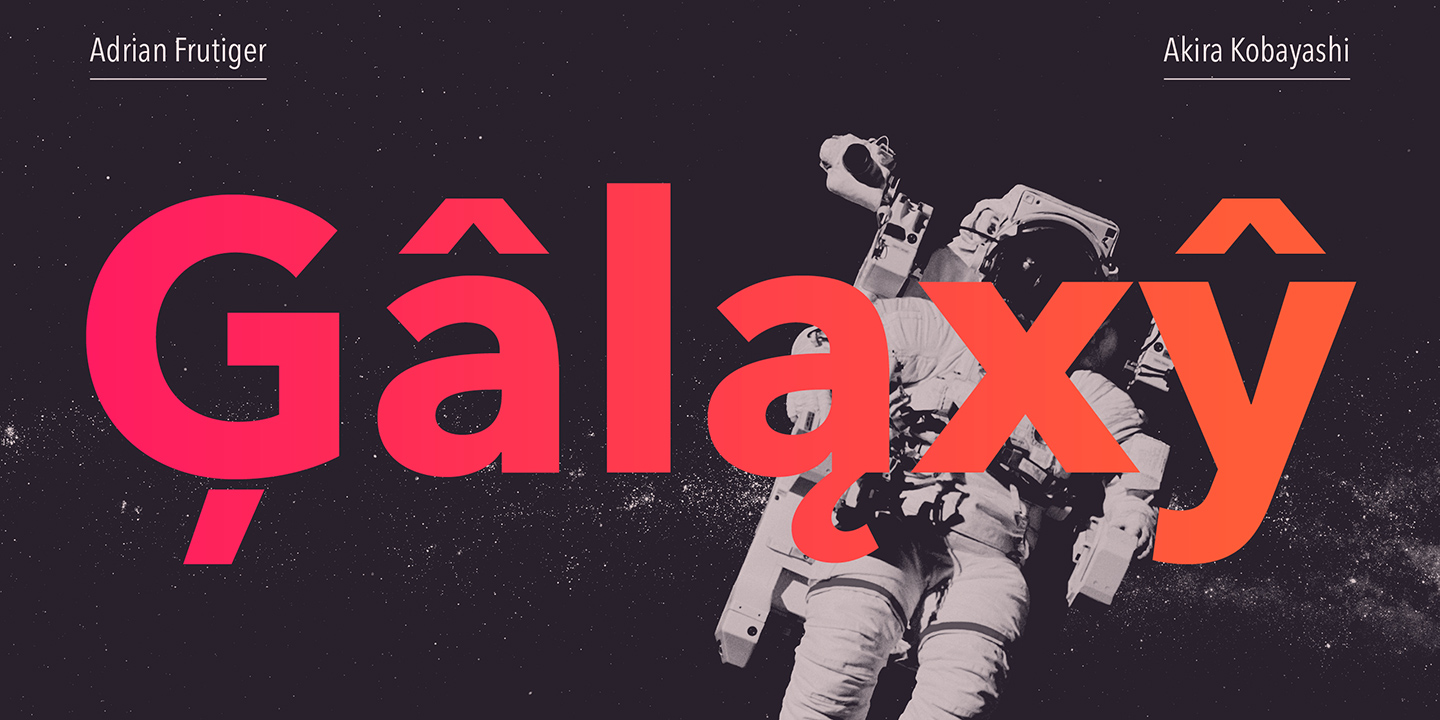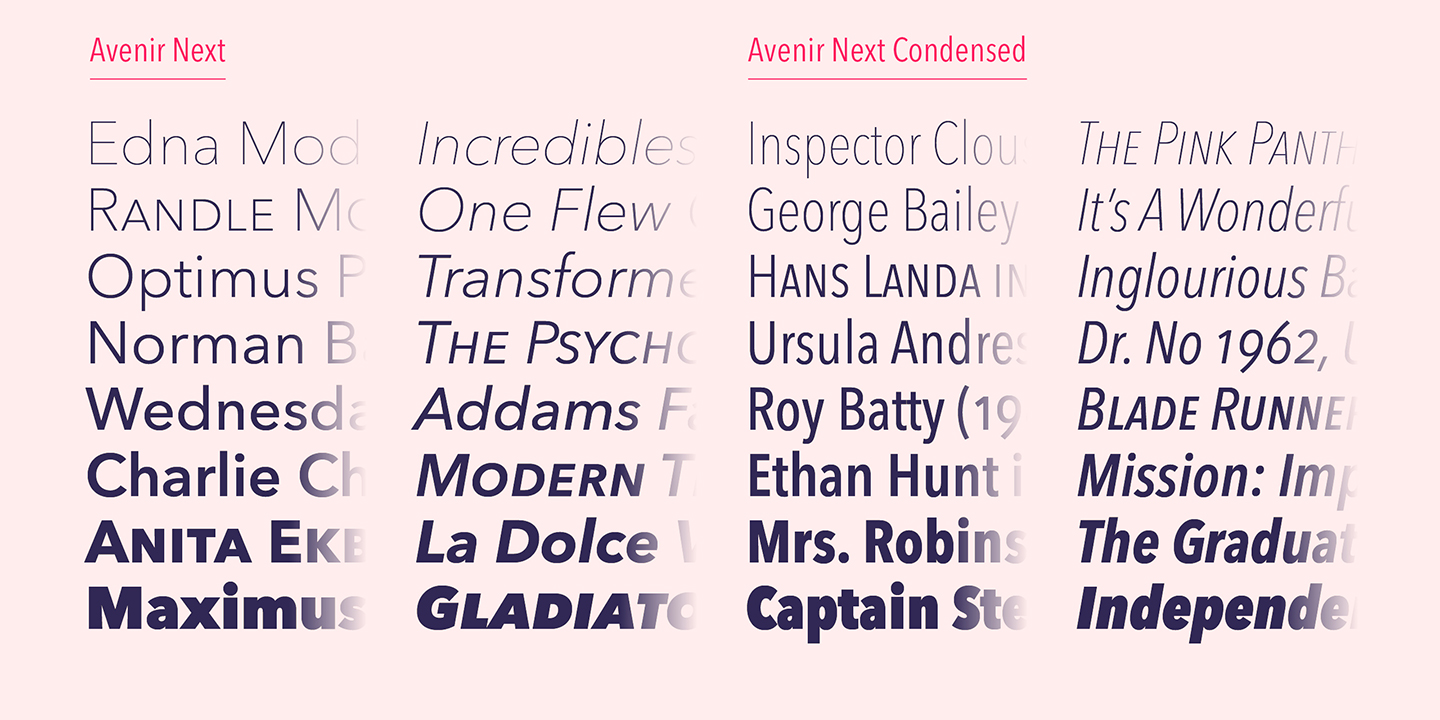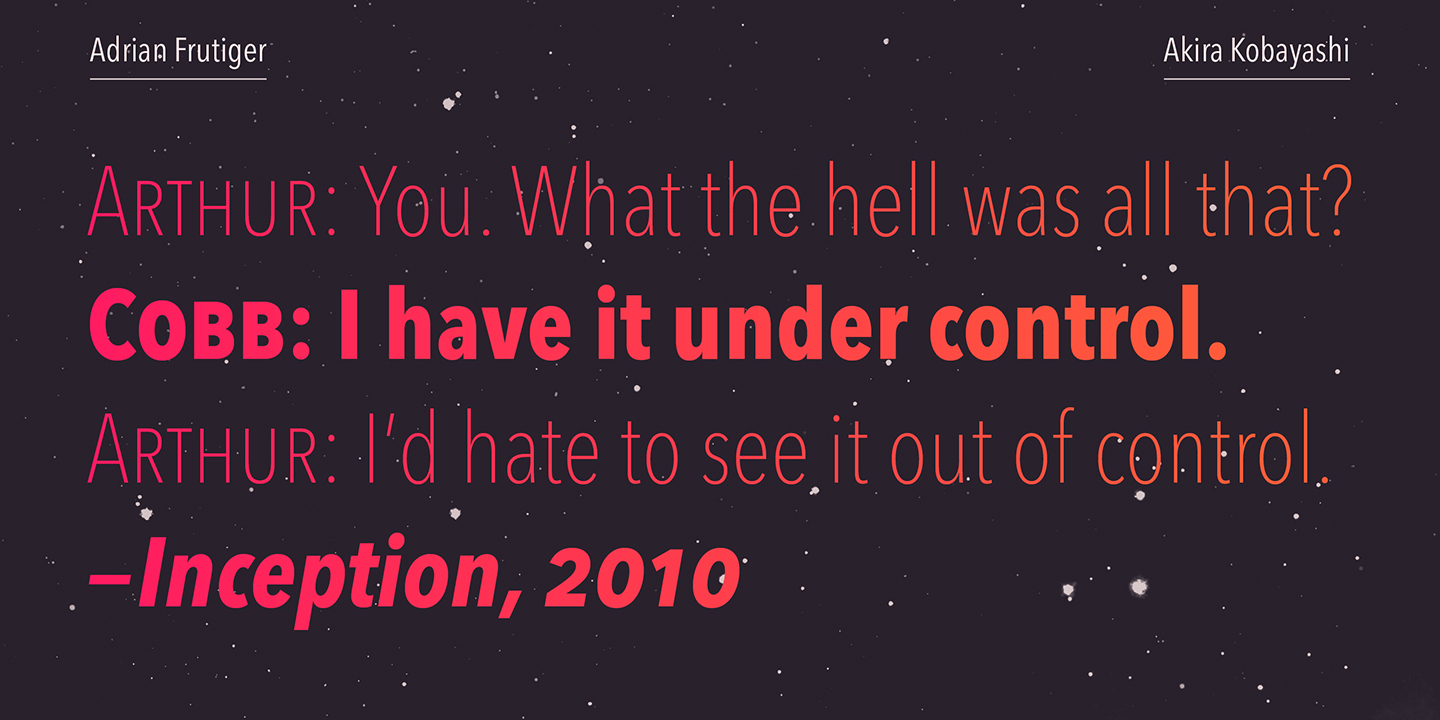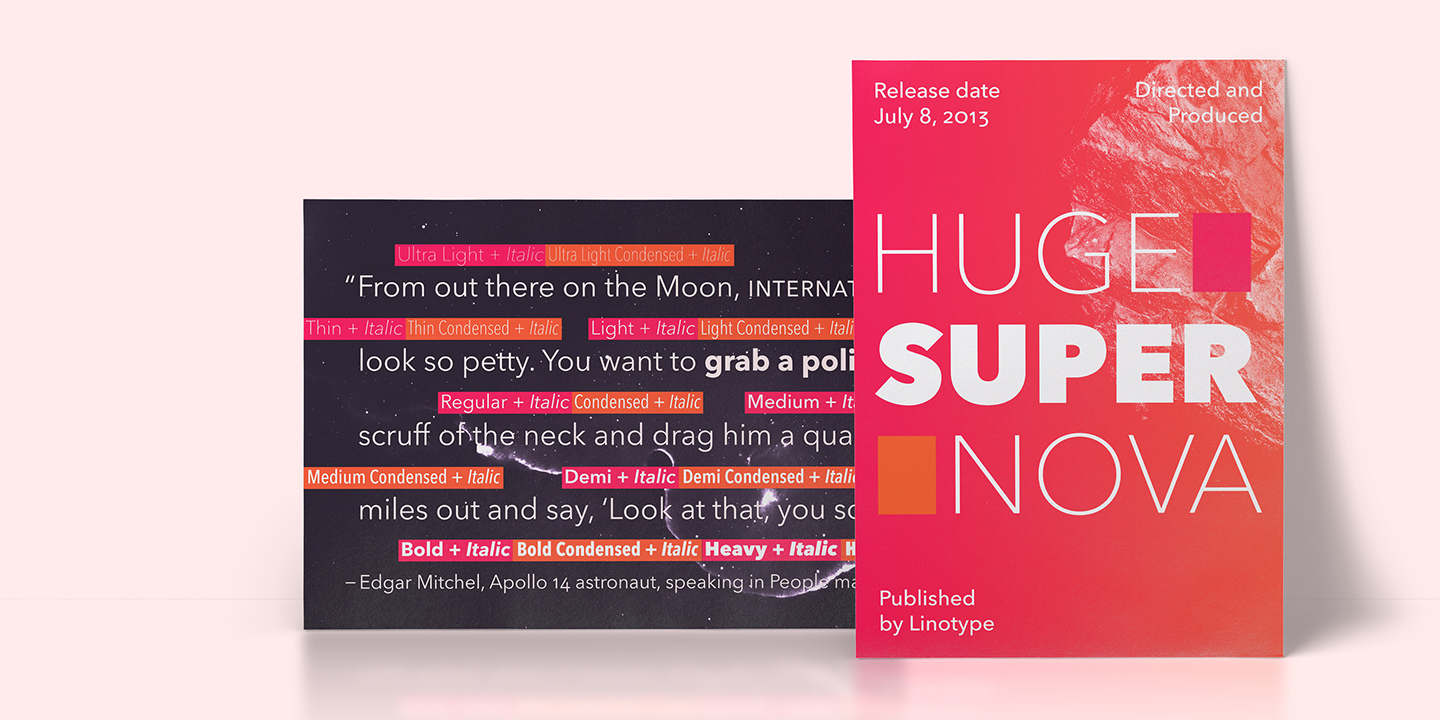
This family is not only an update though, in fact it is the expansion of the original concept that takes the Avenir Next design to the next level. In addition to the standard styles ranging from ultra light to heavy, this 32-font collection offers condensed faces that rival any other sans on the market in on and off—screen readability at any size alongside heavy weights that would make excellent display faces in their own right and have the ability to pair well with so many contemporary serif body types. Overall, the family’s design is clean, straightforward and works brilliantly for blocks of copy and headlines alike.
Akira Kobayashi worked alongside Avenir’s esteemed creator Adrian Frutiger to bring Avenir Next Pro to life. It was Akira’s ability to bring his own finesse and ideas for expansion into the project while remaining true to Frutiger’s original intent, that makes this not just a modern typeface, but one ahead of its time.